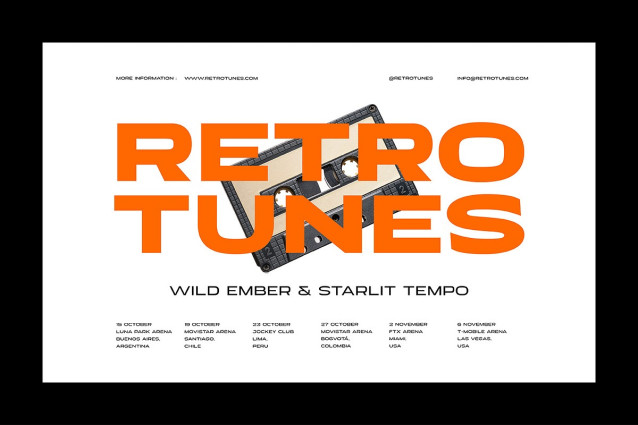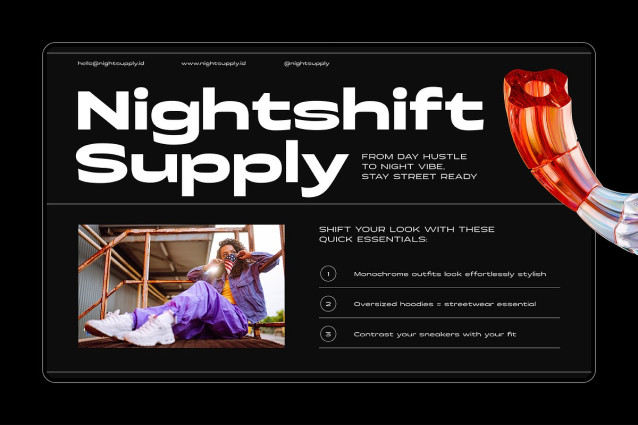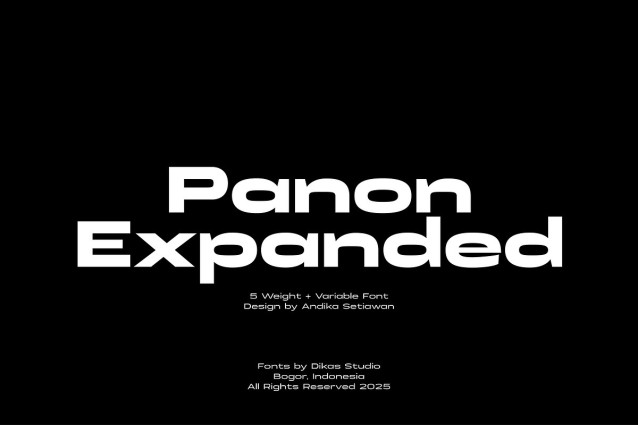
DKS Panon Font Family
DKS Panon Font Family a wide sans serif font that combines bold power with a playful edge. Perfect for logos, posters, sports, and branding, it delivers a strong impact without losing clarity.
With 5 weights + variable font, Panon Expanded adapts to any project — from modern headlines to stylish covers. Inspired by bold poster typography, it’s designed to bring confidence and character to your work.